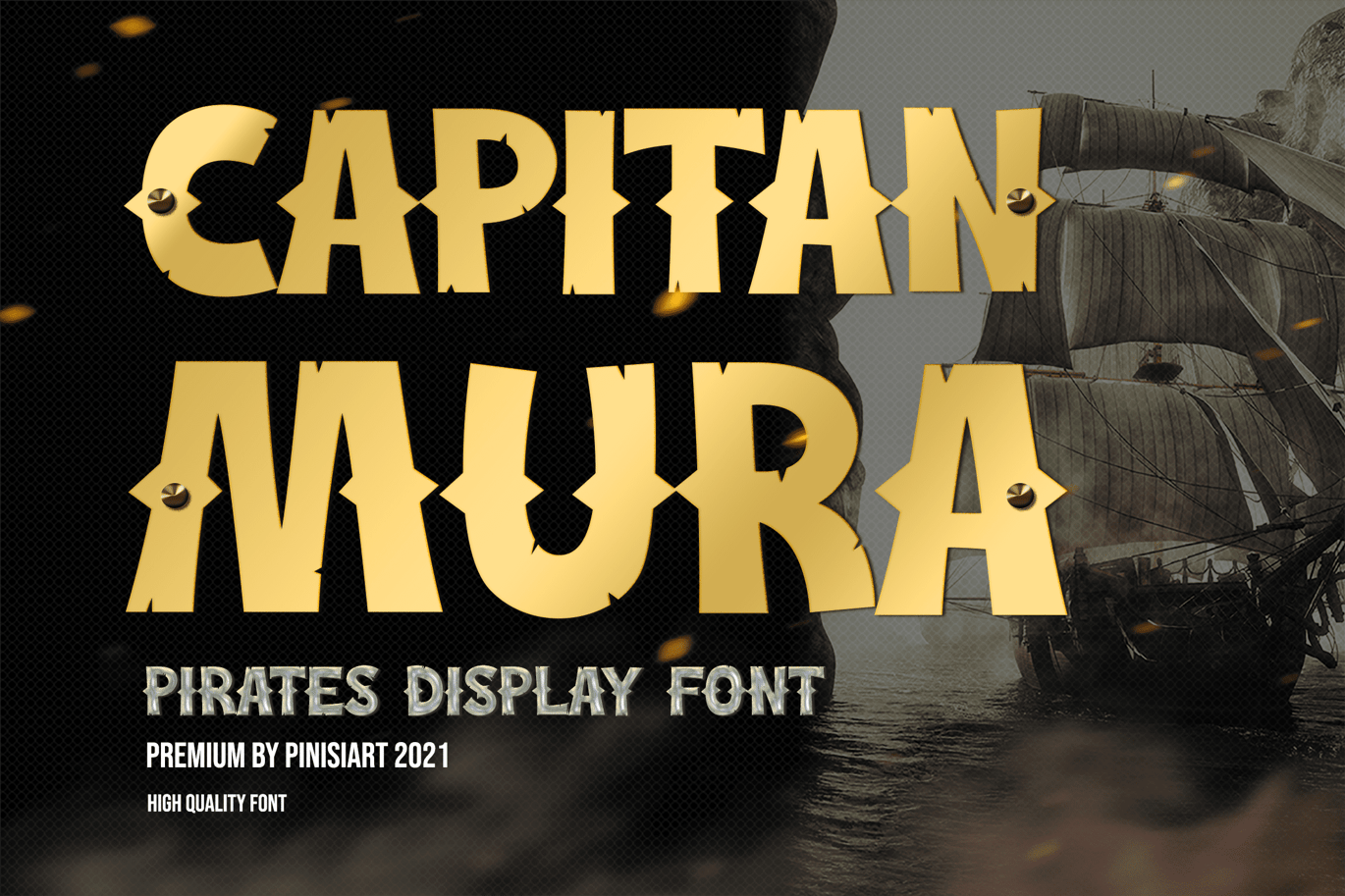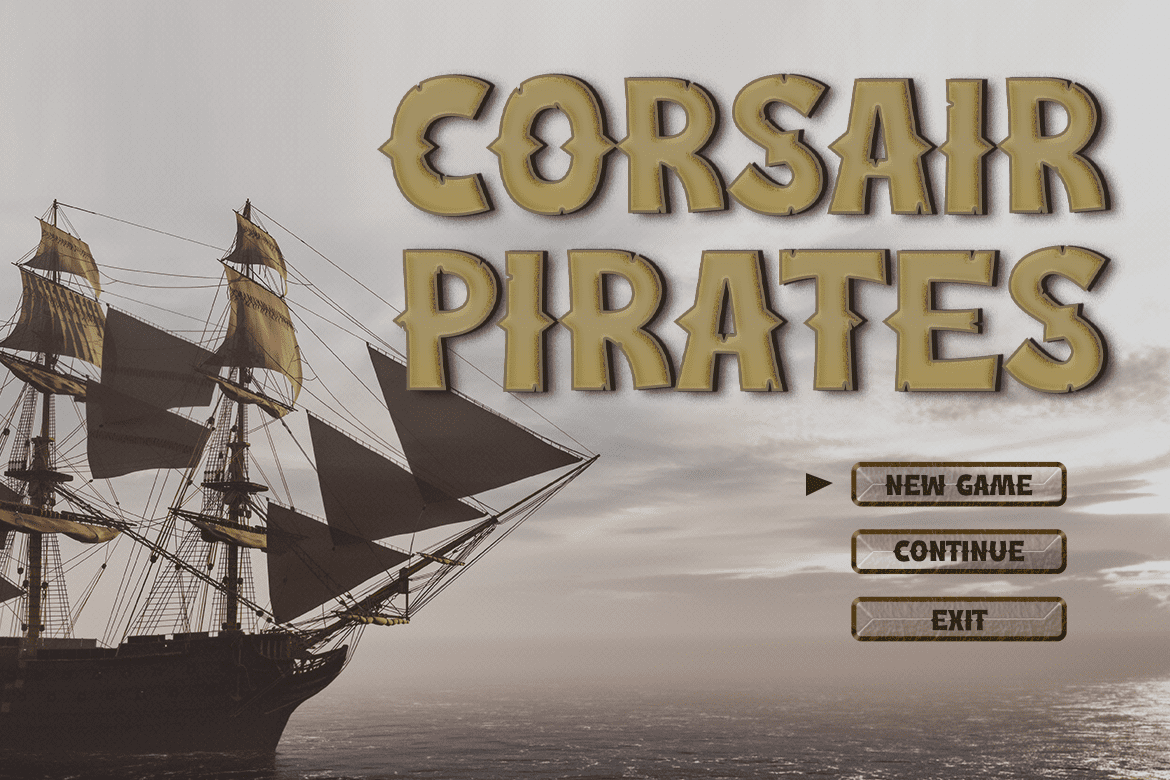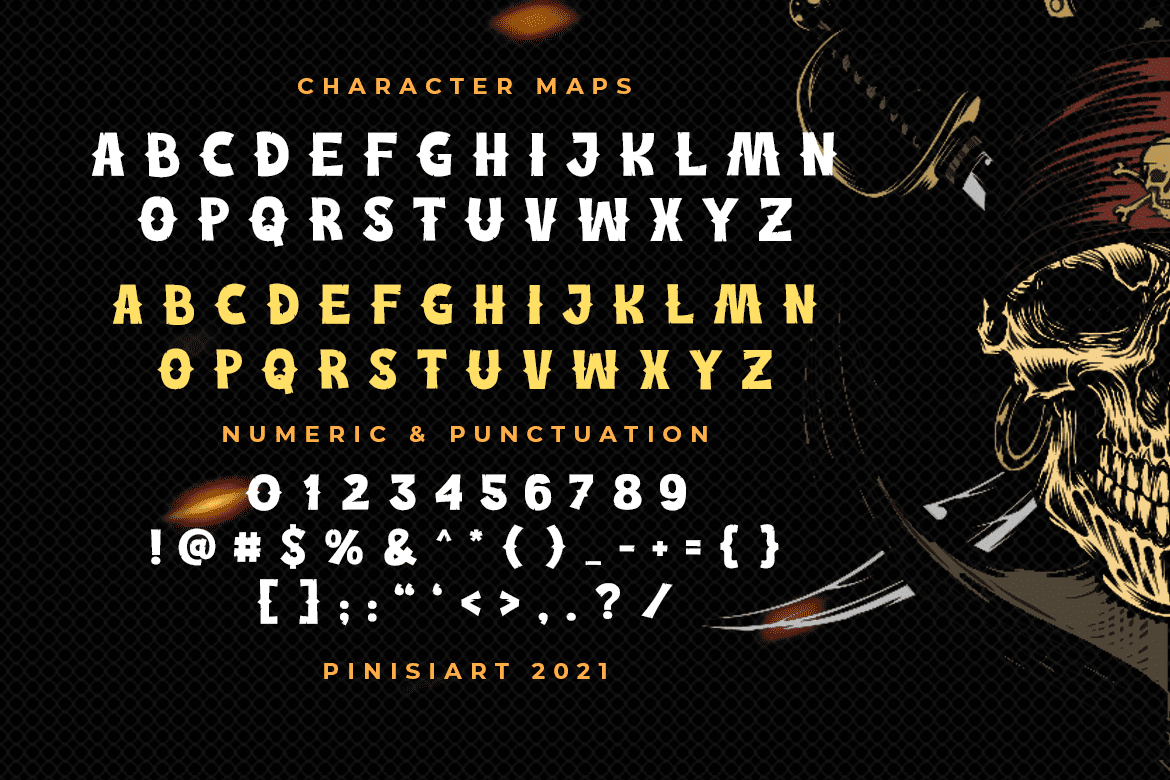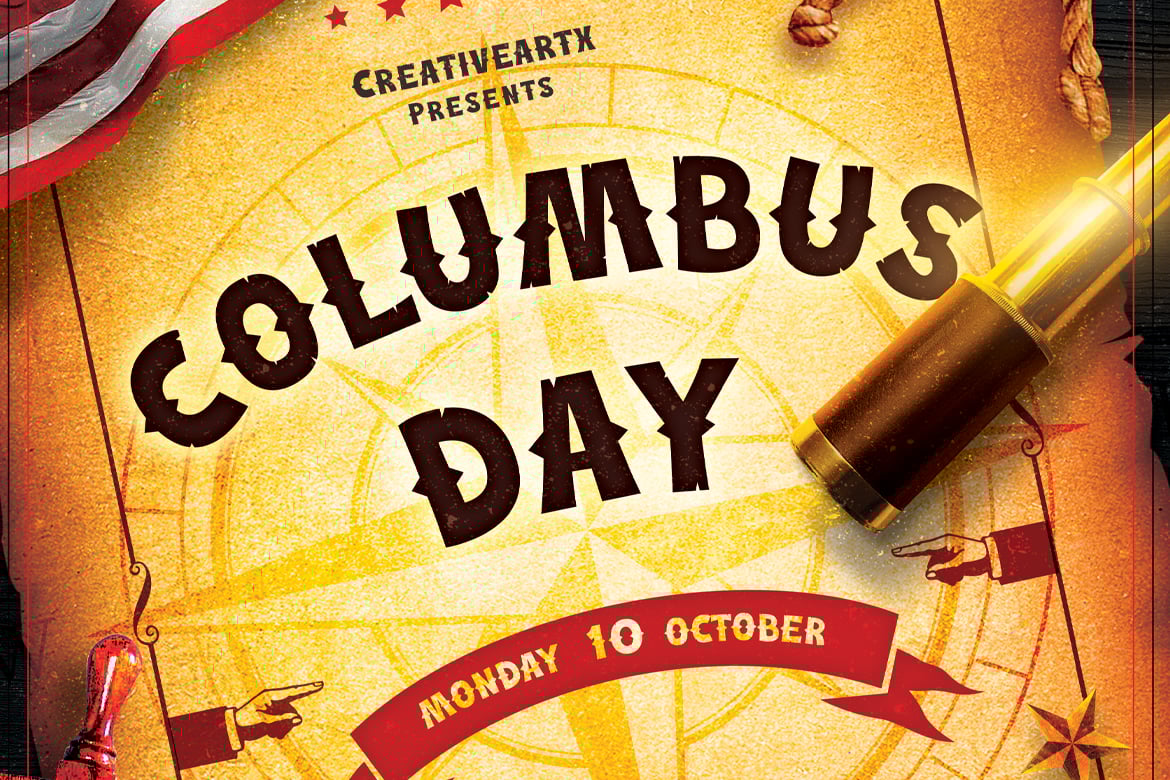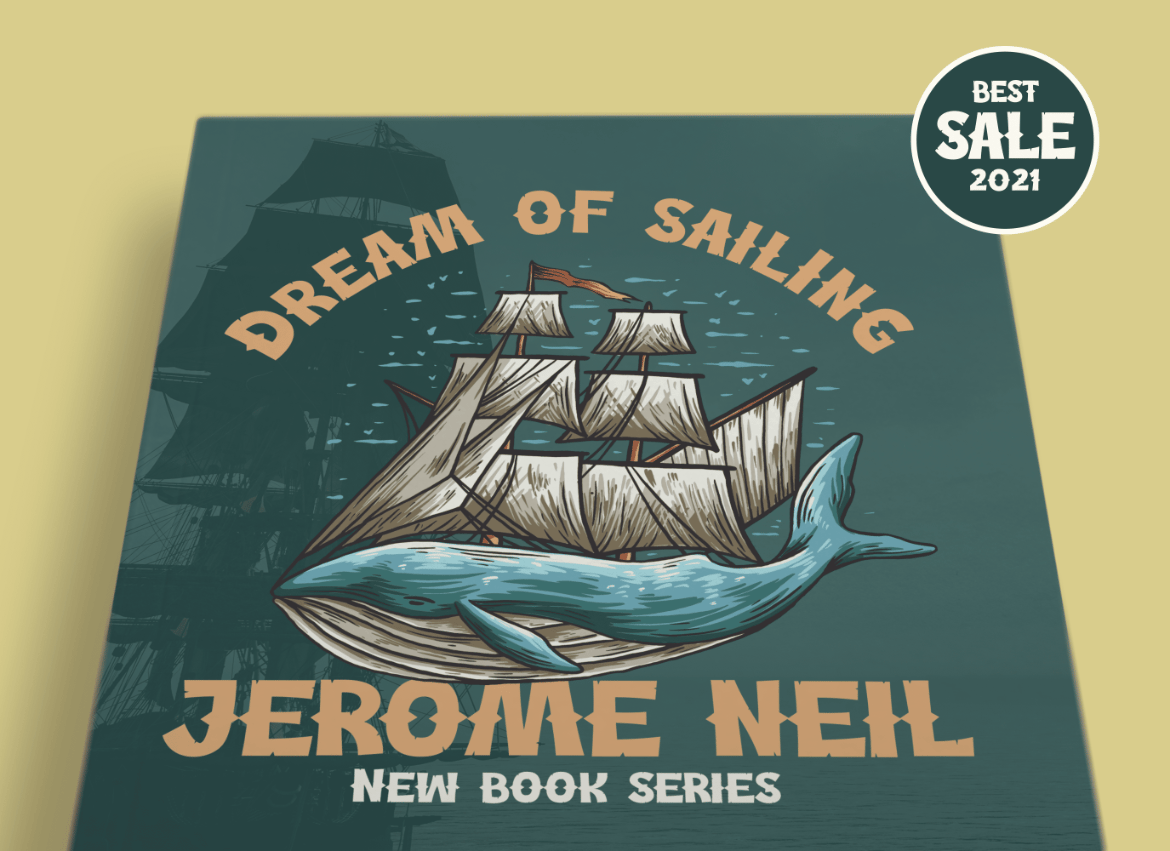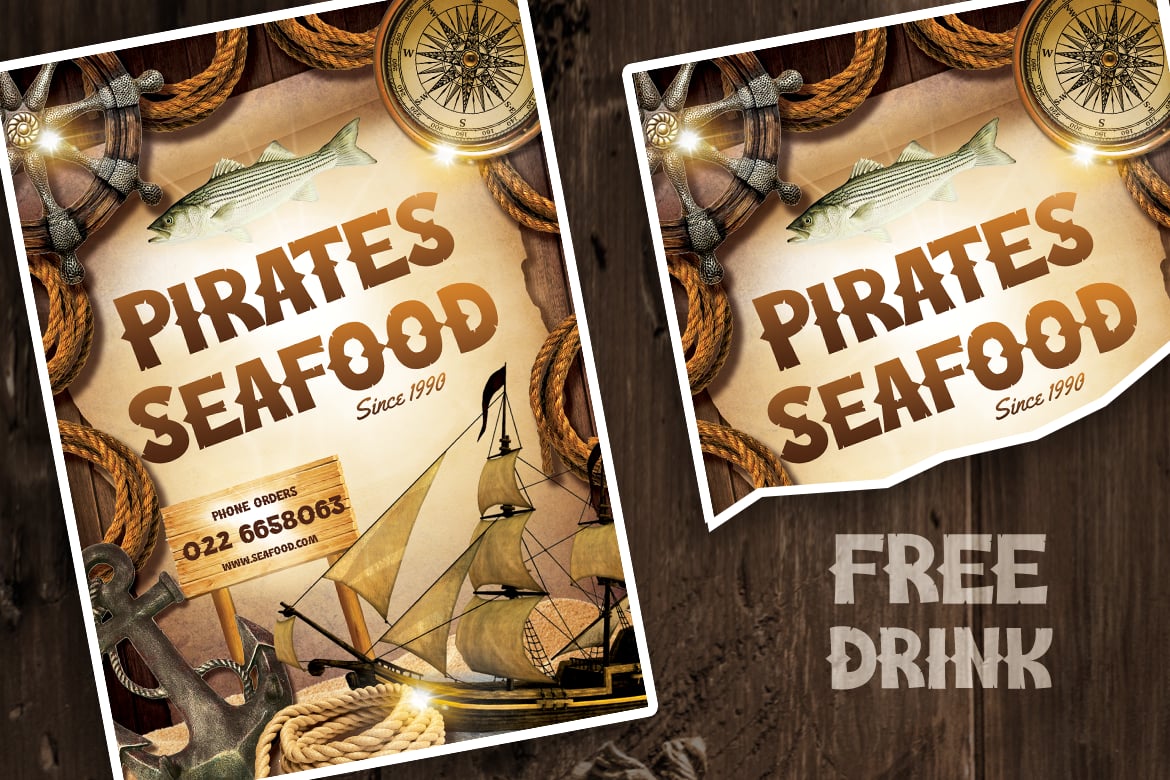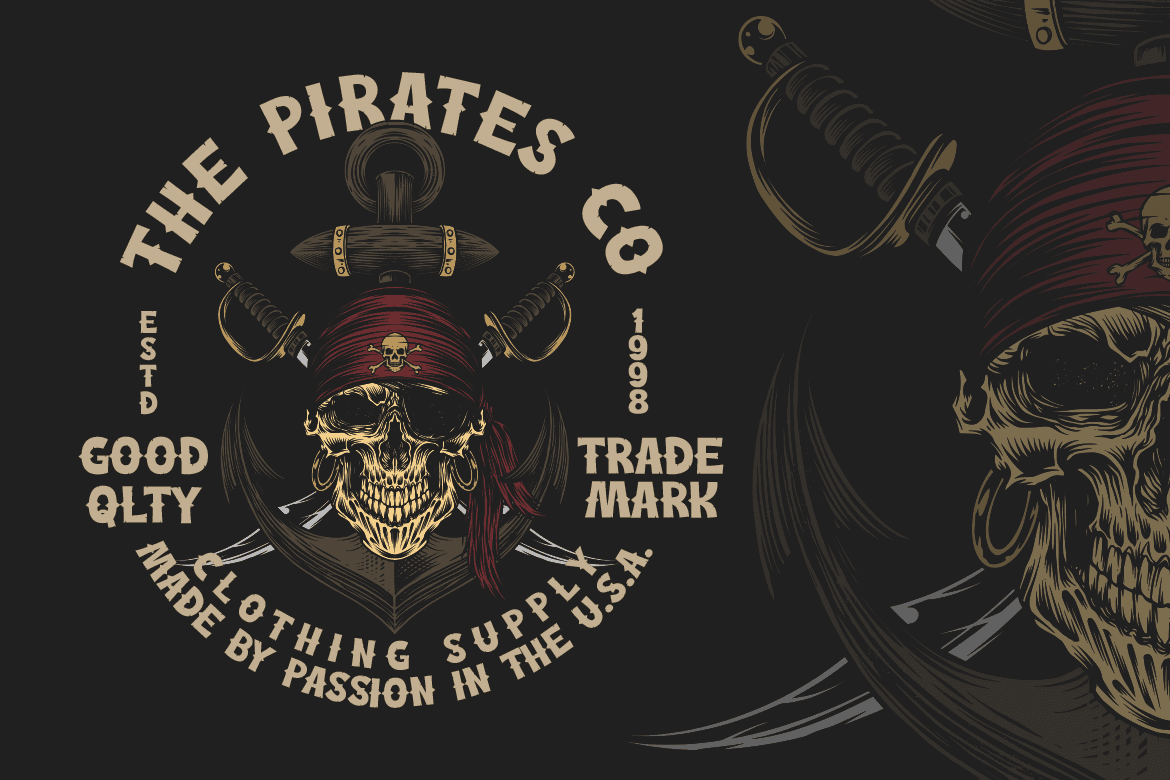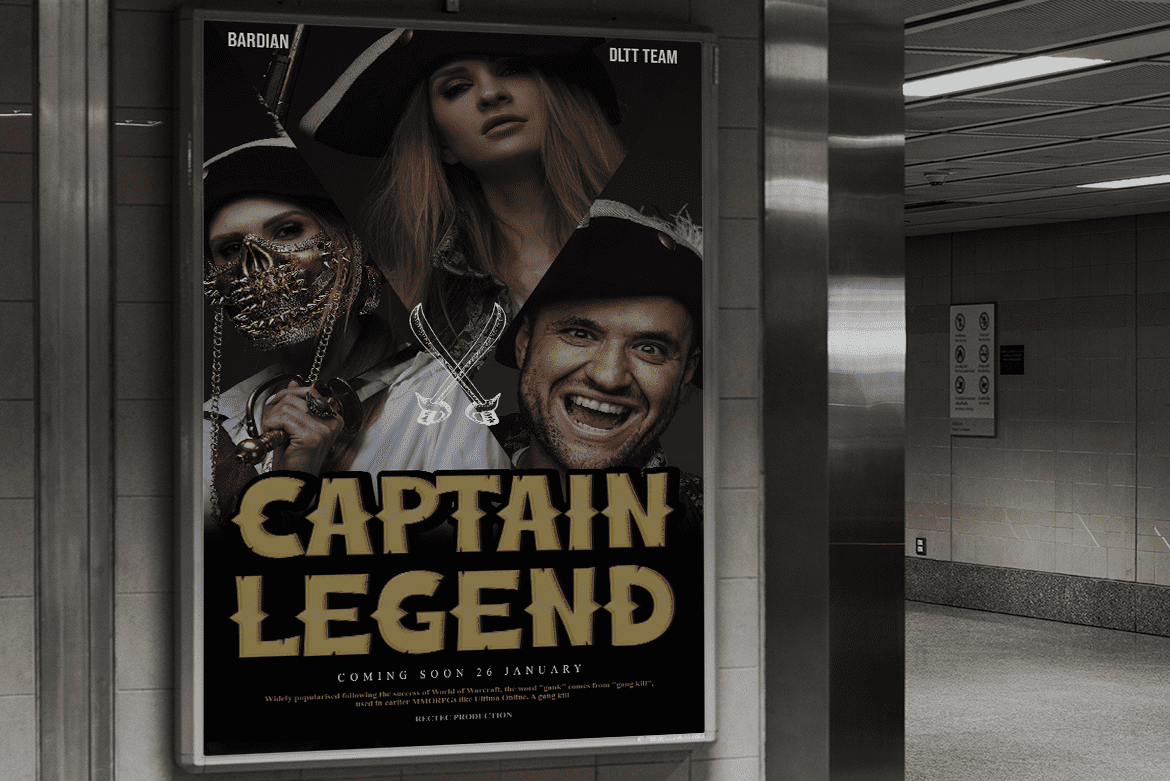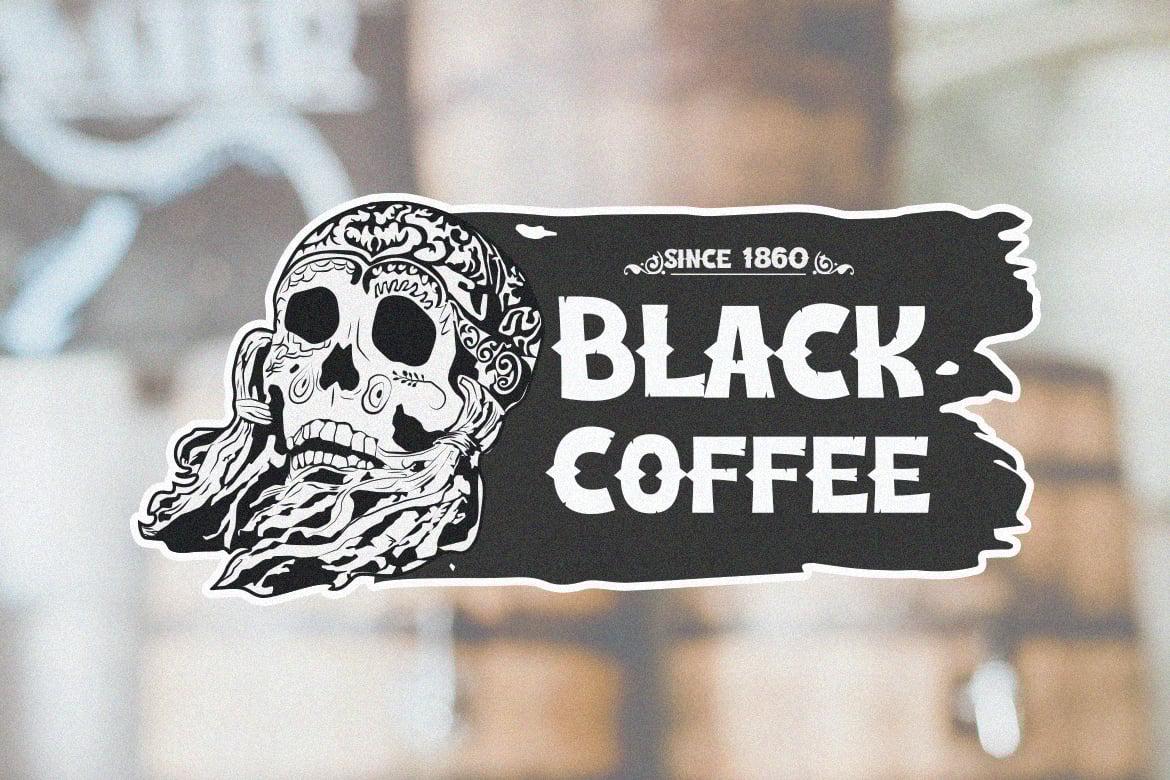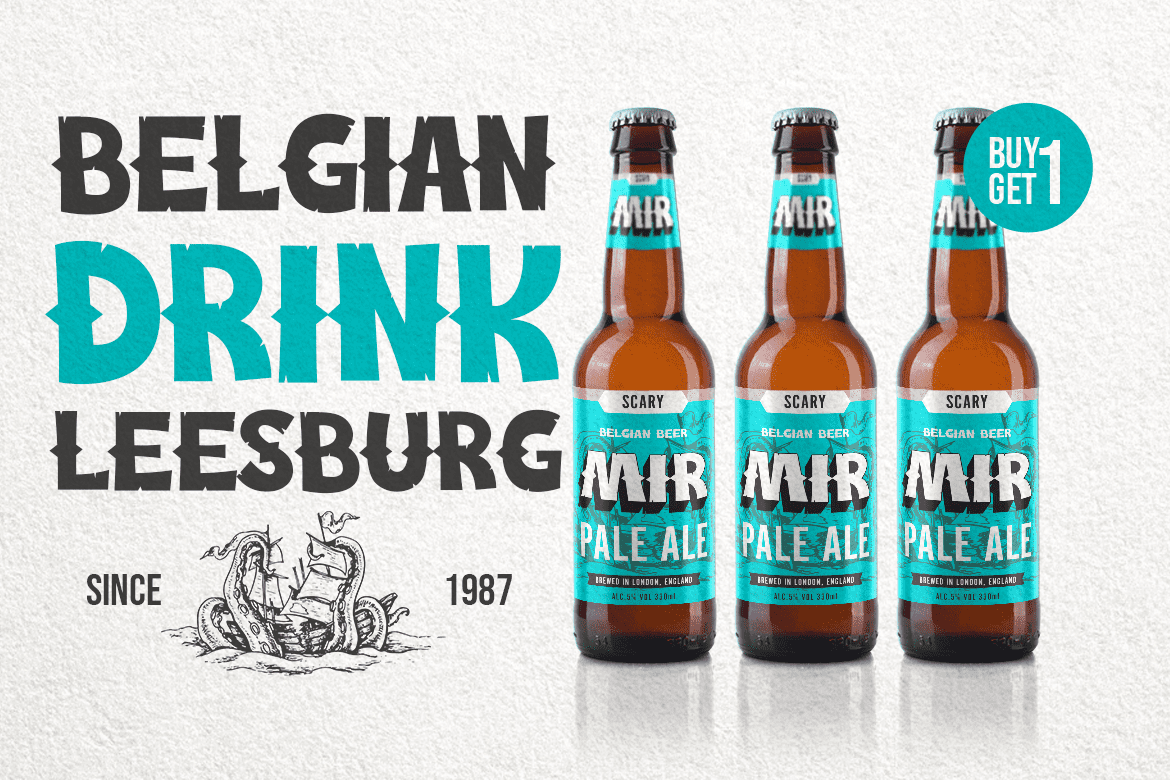
Capitan Mura – pirate display font
The sea conqueror, the most feared captain of the seven seas. Please welcome, Capitan Mura.
Suit perfectly for pirate themes books market, online games, stationary, school supplies font, poster, movie title, youtube covers, youtube thumbnails, social media page covers and so on…